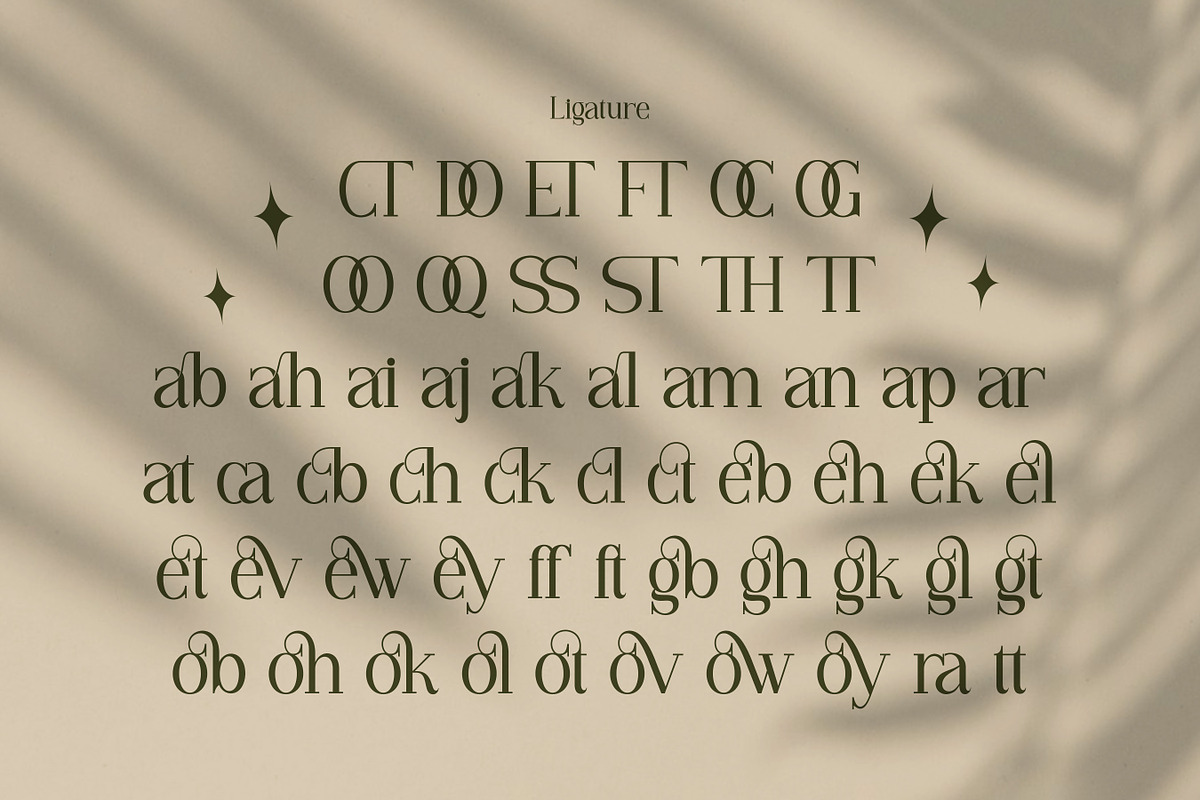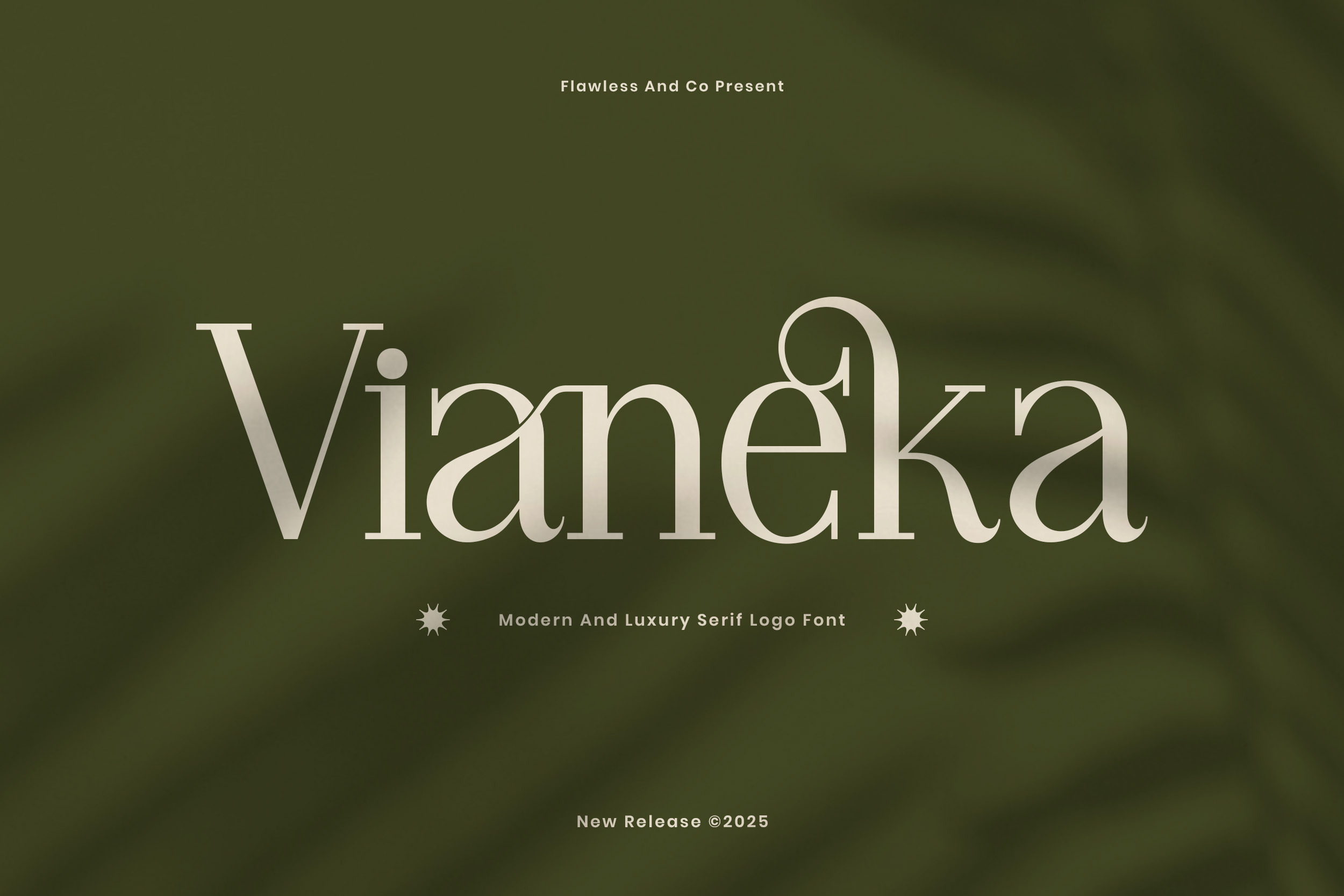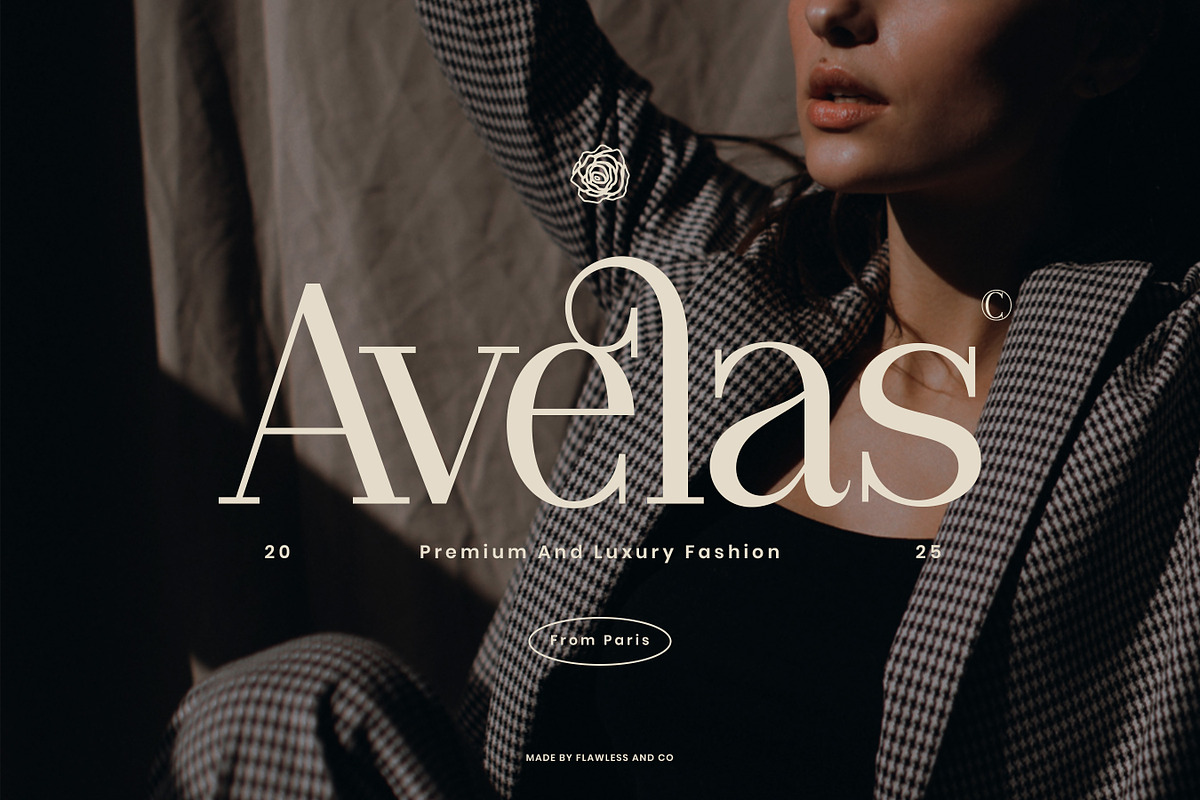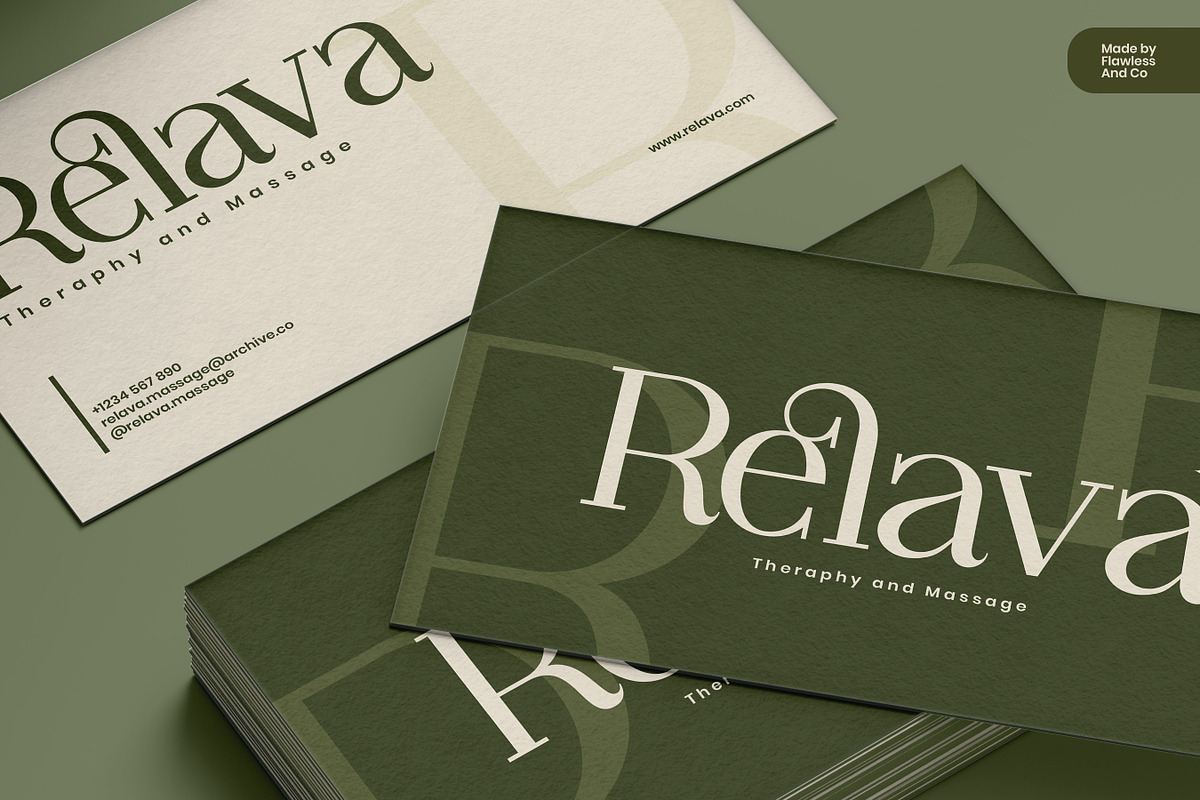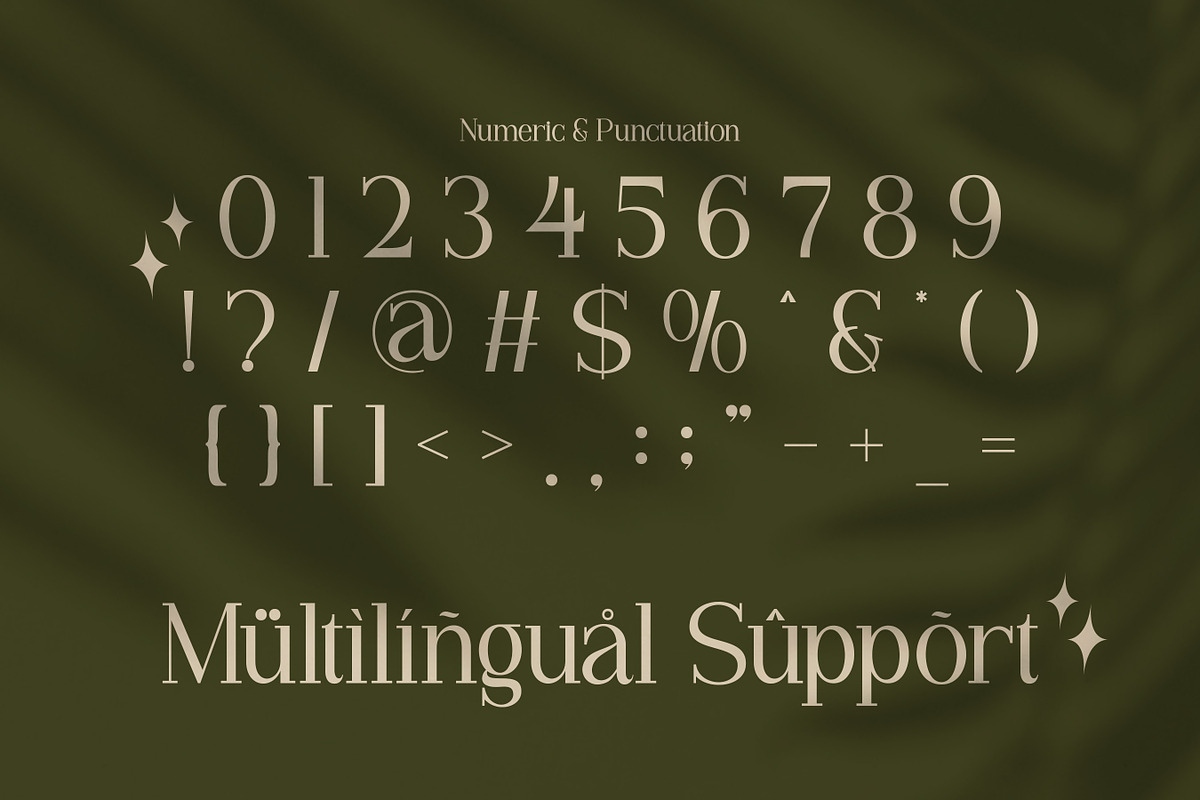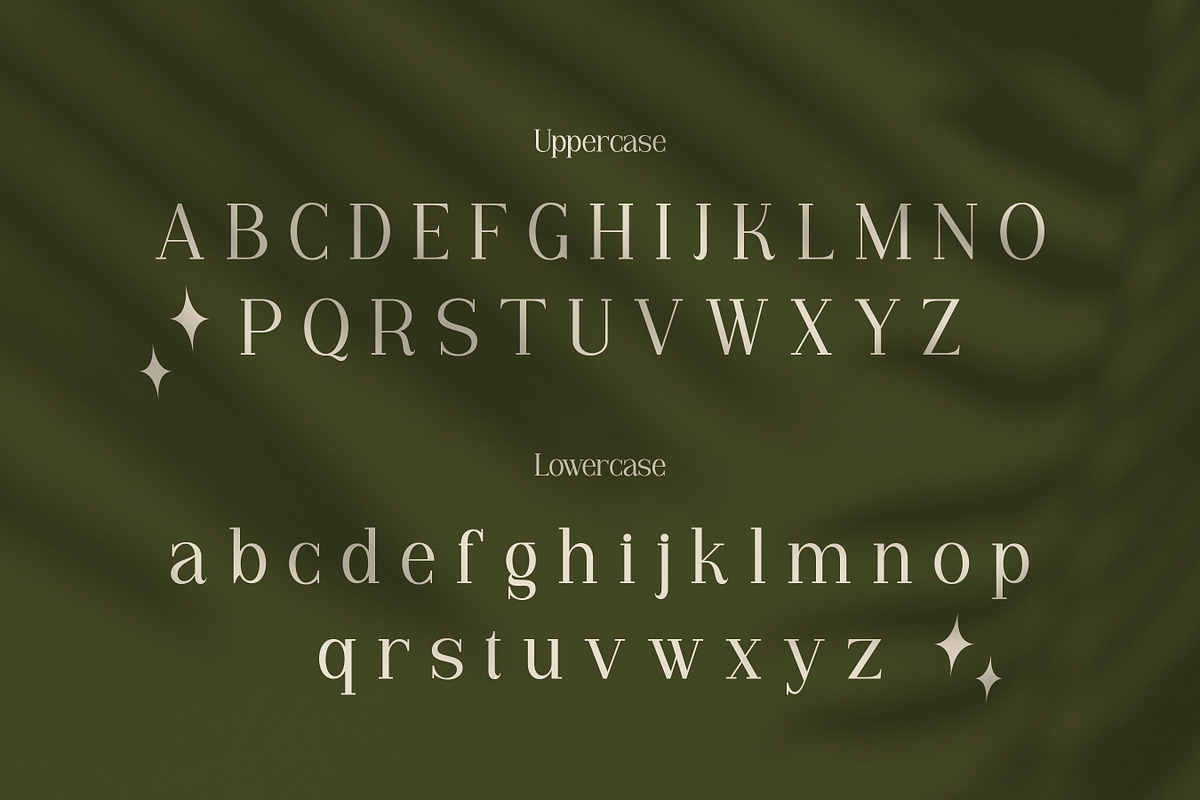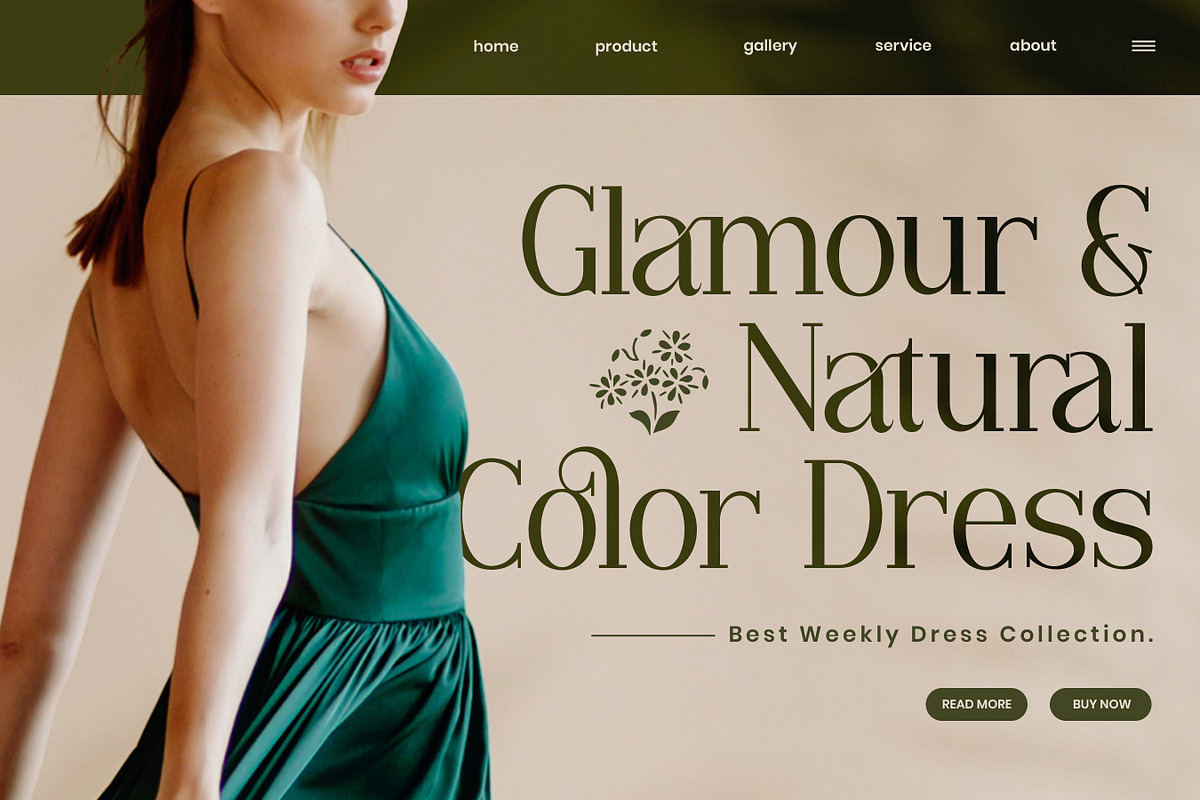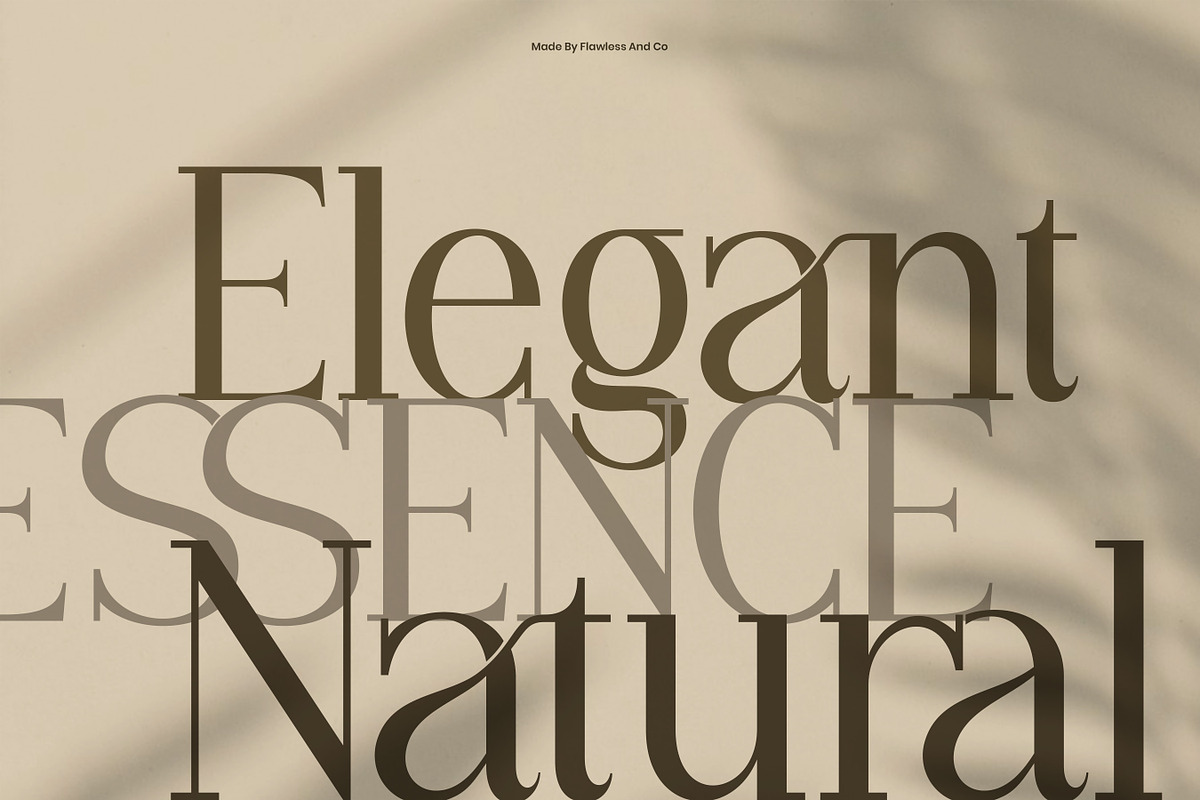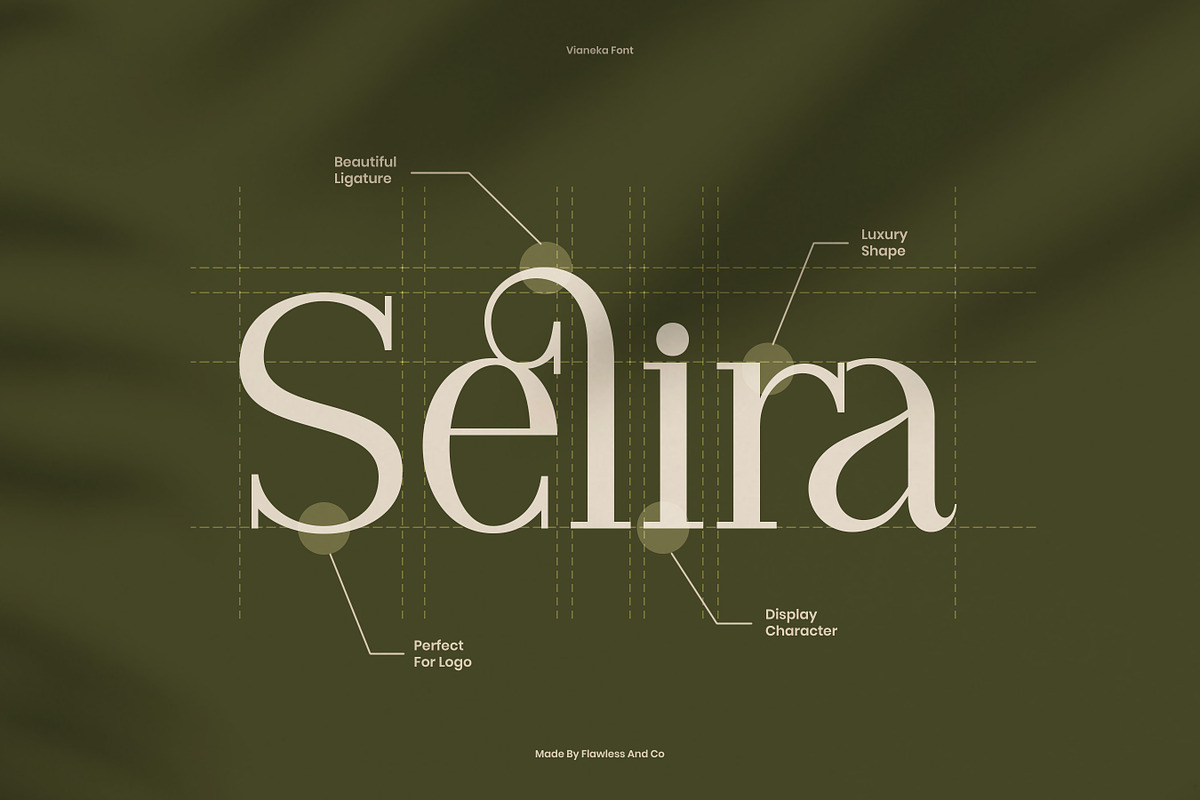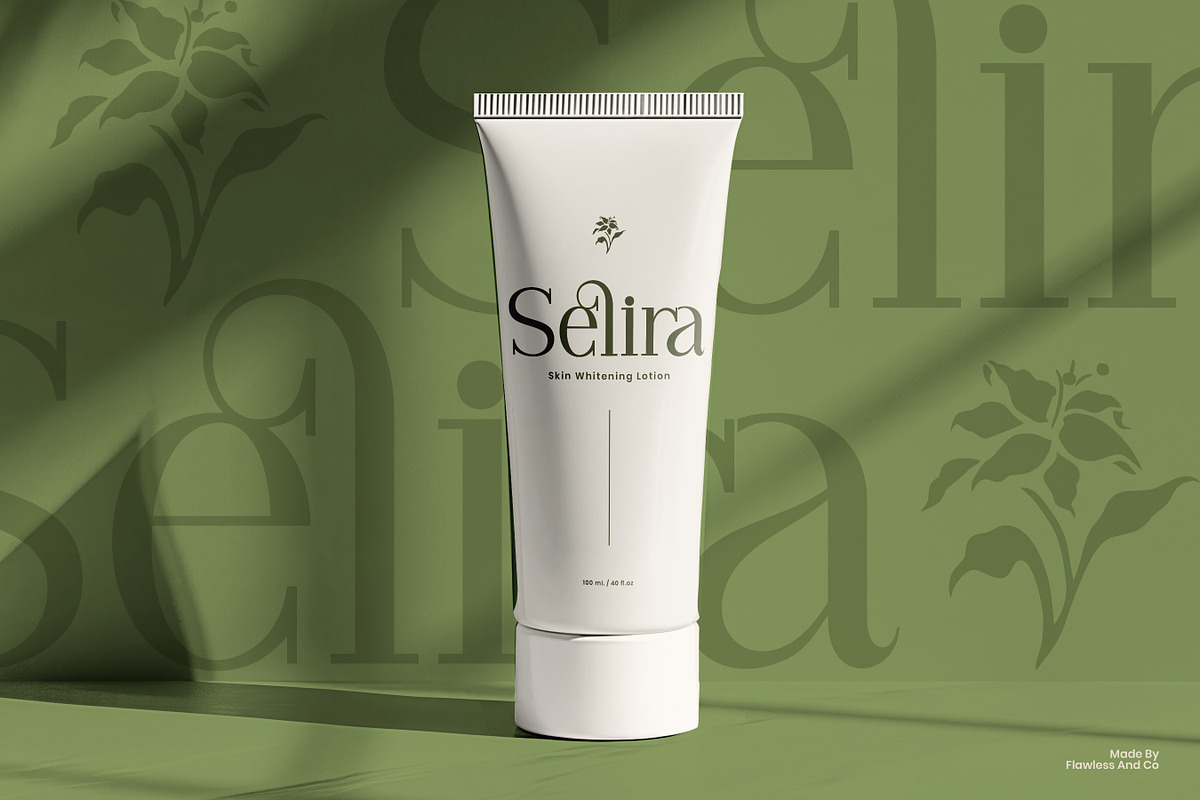
Vianeka - Modern Luxury Serif Font
Vianeka – Modern and Luxury Serif Font
Vianeka is a modern luxury serif font that exudes elegance, sophistication, and timeless style. Designed with graceful curves and refined letterforms, it brings a high-end aesthetic to any design project. Perfect for branding, logo design, invitations, packaging, fashion, and editorial layouts, Vianeka captures a sense of modern prestige and classic beauty. Each character is carefully crafted to create a luxurious and harmonious visual flow.
Who Should Use Vianeka
Vianeka is perfect for designers, brands, and creatives who want to bring a touch of luxury and sophistication to their work.
This font is ideal for:
- Luxury brands seeking refined elegance in their logos and packaging.
- Fashion designers who want to express timeless beauty in their visual identity.
- Wedding and event planners creating graceful, high-end invitations.
- Editorial and magazine designers crafting modern, stylish layouts.
- Boutique businesses that value class, minimalism, and modern charm.
A Must-Have Font for Brand and Logo Creators
Vianeka is a must-have for brand and logo designers who value timeless sophistication and modern elegance. With its luxurious serif details and graceful flow, this font transforms ordinary designs into high-end visual identities that stand out with style and confidence.
Why Choose Vianeka for Brand and Logo Projects?
Vianeka combines modern elegance and luxurious detail, making it the perfect choice for brand and logo design. Every curve and serif is crafted to evoke refinement, confidence, and sophistication, allowing your brand identity to feel timeless and exclusive. Whether you’re designing for fashion, beauty, lifestyle, or high-end products, Vianeka ensures your work stands out with a distinctive, premium aesthetic.
Suitable For
- Luxury Brand Identity
- Fashion and Beauty Logo Design
- Editorial and Magazine Titles
- Product Packaging and Labels
- Wedding Invitations and Stationery
- High-End Advertising and Branding Projects